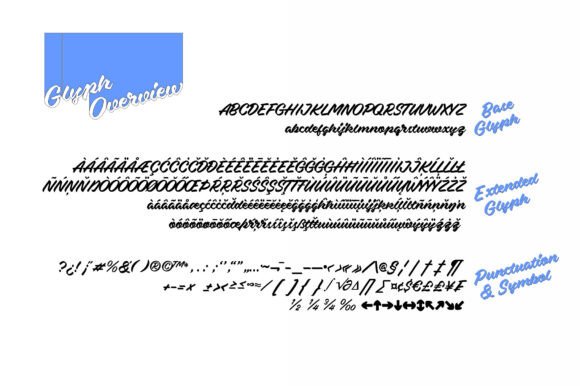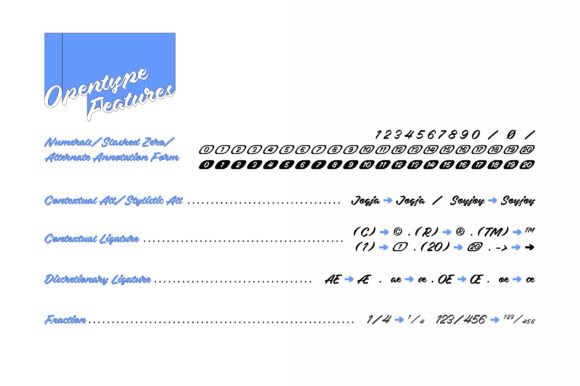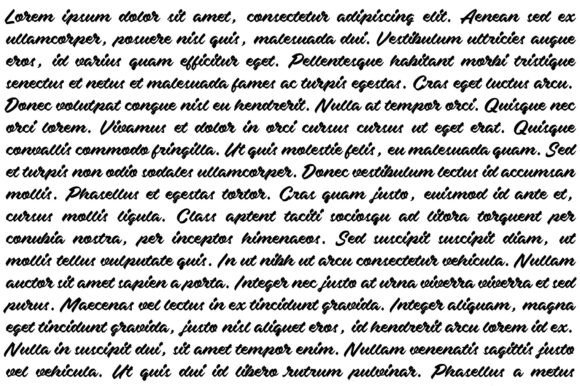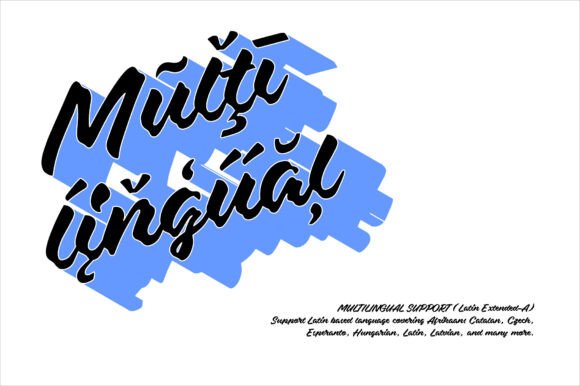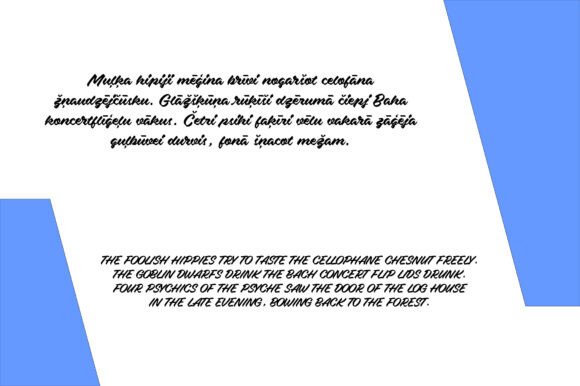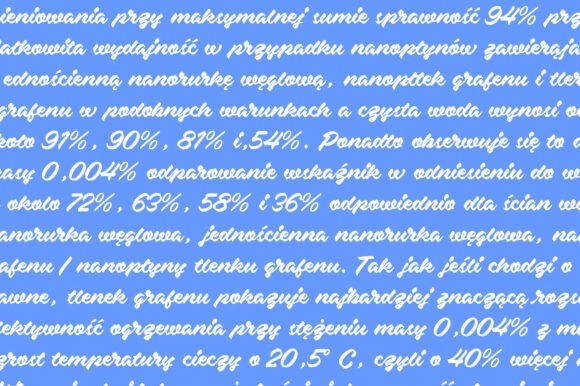
The Chiba Script Font: A Playful and Retro Addition to Your Design Toolbox
I still remember the design project that led me to discover the Chiba Script font. I was working on a vintage-themed poster for a local craft fair, and I was struggling to find the perfect font to capture the playful, old-school vibe I was going for. That’s when I stumbled upon Chiba Script, and it instantly became the star of the show. In this article, I’ll share my experience with this lovely font, its features, and how to make the most of it in your designs.
An Honest Review of Chiba Script
So, what makes Chiba Script so special? Here are the things I love about it:
- ✨ Smooth, flowing style: Chiba Script has a beautiful, hand-drawn feel that’s perfect for adding a touch of whimsy to your designs.
- ✅ Retro charm: This font is inspired by vintage sign painting, and it shows in its classic, nostalgic look.
- 🎉 Versatility: Chiba Script is suitable for a wide range of design projects, from posters and logos to invitations and more.
Of course, no font is perfect, and Chiba Script has a few small quirks:
- 🤔 Limited use of uppercase letters: While the font does have uppercase letters, they’re not as stylized as the lowercase letters. This might be a consideration if you need a font with strong uppercase letters.
- ⚠️ Occasional kerning issues: As with any font, you might encounter some kerning issues, especially when using certain letter combinations. However, these can usually be easily adjusted in your design software.
- Experiment with the font’s OpenType features, such as stylistic alternates and glyphs, to add more personality to your text.
The Story Behind Chiba Script
Chiba Script was designed with the goal of capturing the playful, retro spirit of vintage sign painting. The font’s creator drew inspiration from classic signage, hand-drawn lettering, and the art of sign painting. The result is a font that’s both nostalgic and modern, with a unique personality that’s sure to add a touch of fun to your designs.
| Font Name | Chiba Script Font |
| Author | Brothers Graphic |
| What is Chiba Script? | Chiba Script is a casual and playful font inspired by the look of hand-drawn lettering and vintage sign painting. |
| What design projects is Chiba Script suitable for? | Chiba Script is perfect for designs like posters, logos, invitations, and more, where a friendly and retro vibe is desired. |